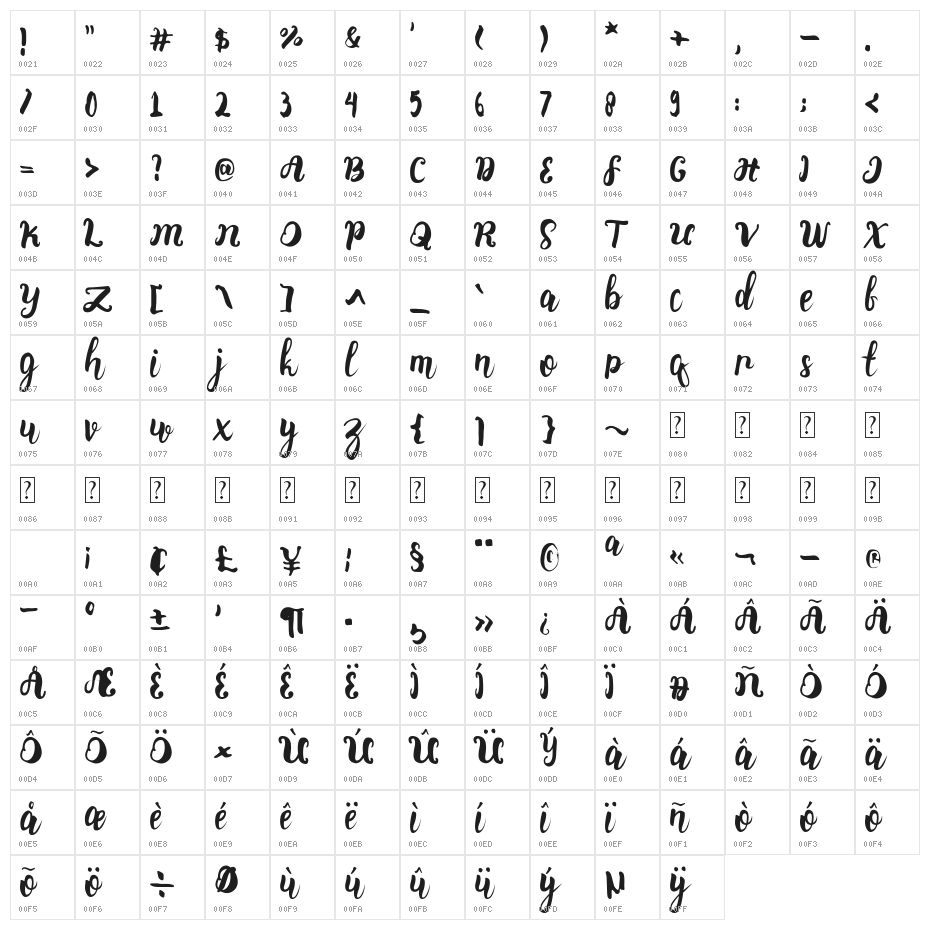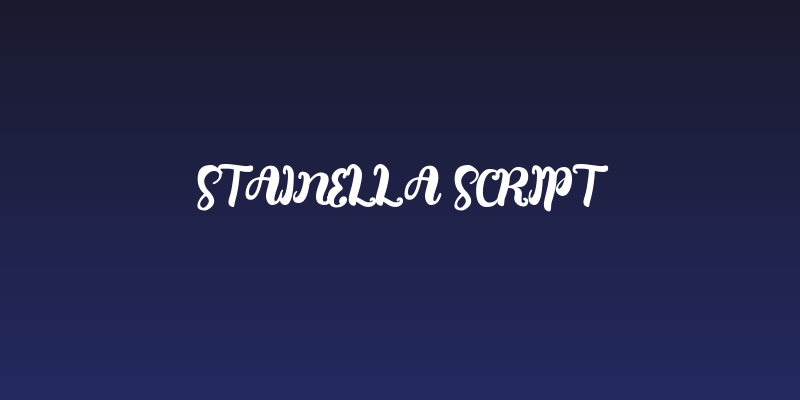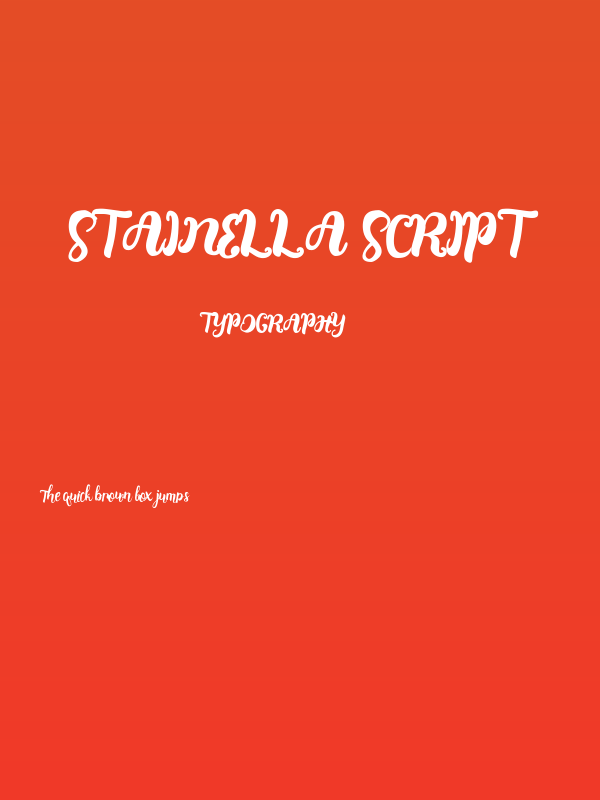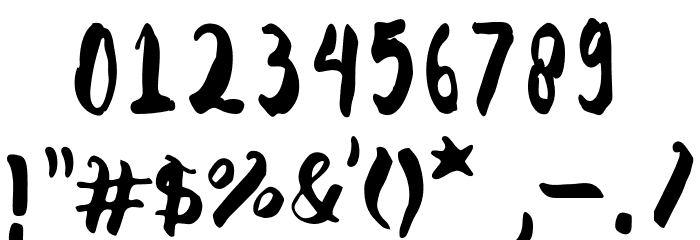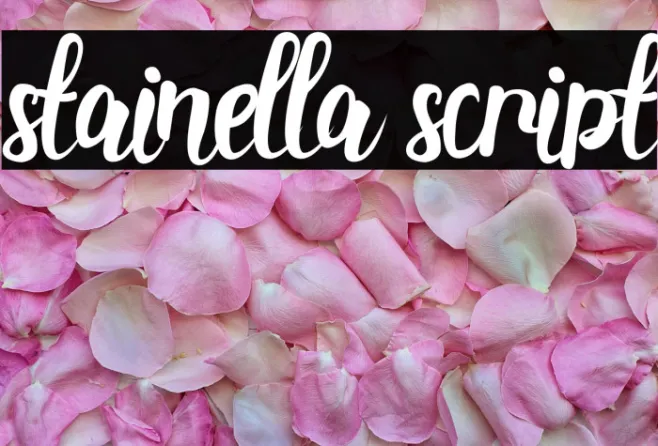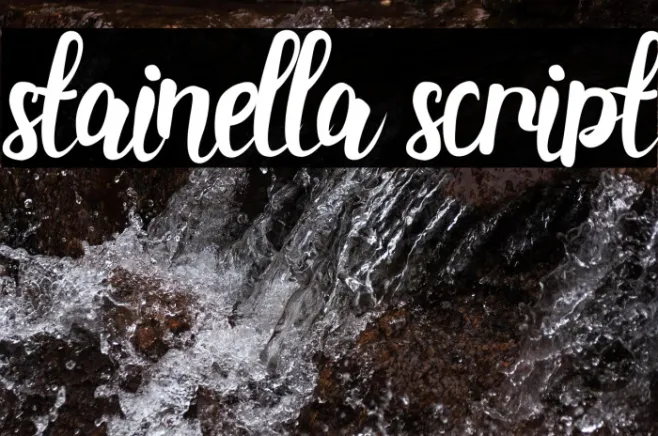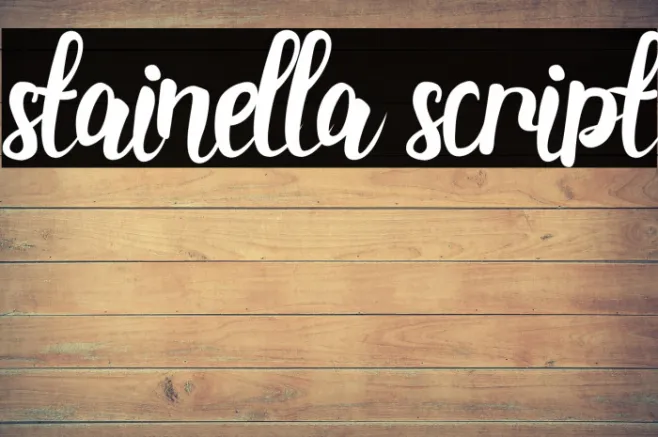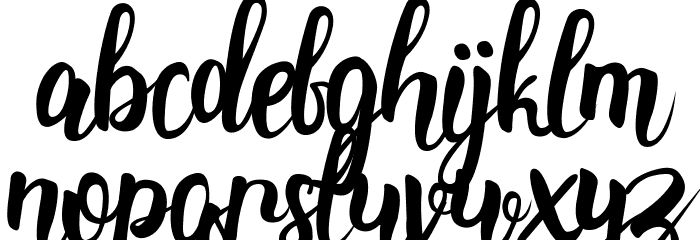
stainella script Font
stainella script Description
This script font exudes a bold and expressive style, characterized by its fluid, cursive strokes and dynamic flow. The uppercase letters are elegantly crafted with sweeping curves and loops, giving a sense of movement and grace. The lowercase letters maintain a consistent style, with some characters featuring distinctive flourishes that add to the font's decorative appeal. The numerals are designed to complement the letters, maintaining the same bold and flowing aesthetic. Special characters are thoughtfully integrated, ensuring versatility in various design contexts. Overall, the font's artistic flair makes it ideal for projects that require a touch of elegance and creativity.
| Proposed Projects | Ideal for wedding invitations, branding, logo design, greeting cards, and artistic posters. |